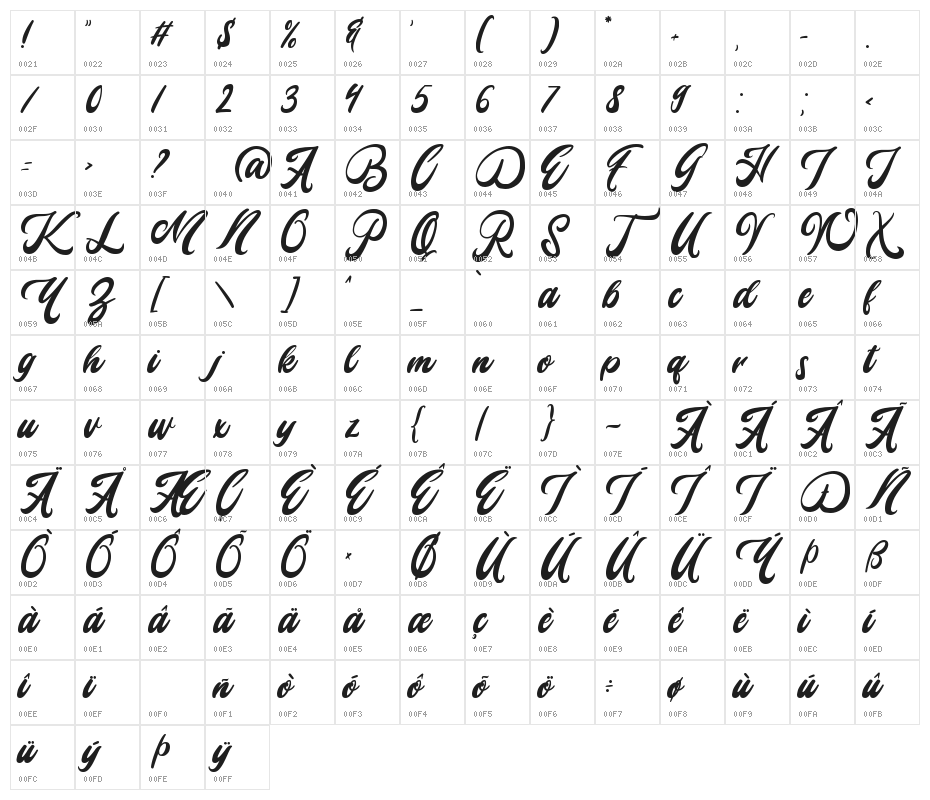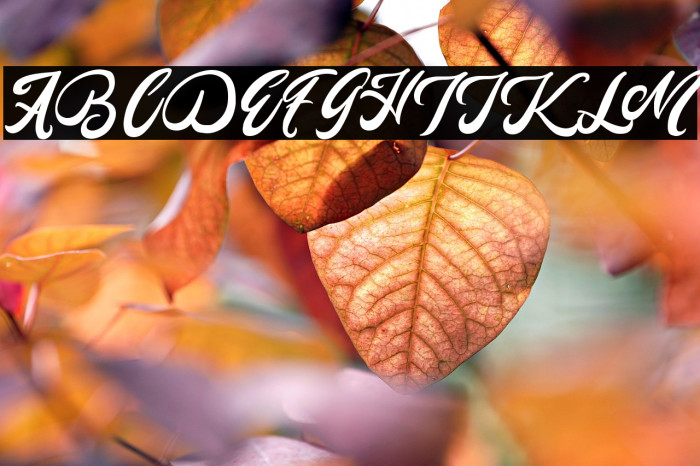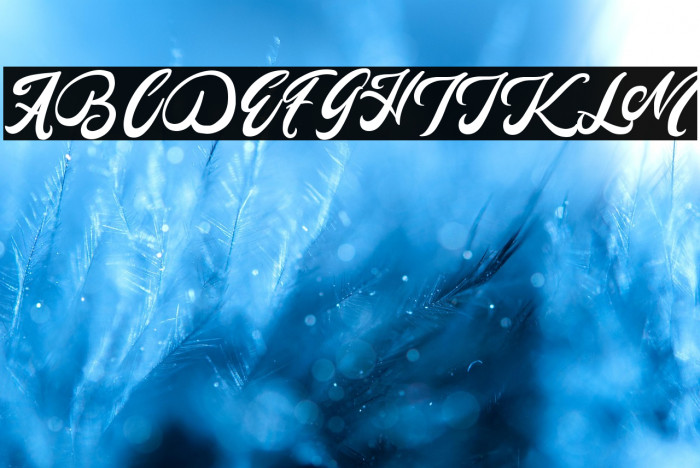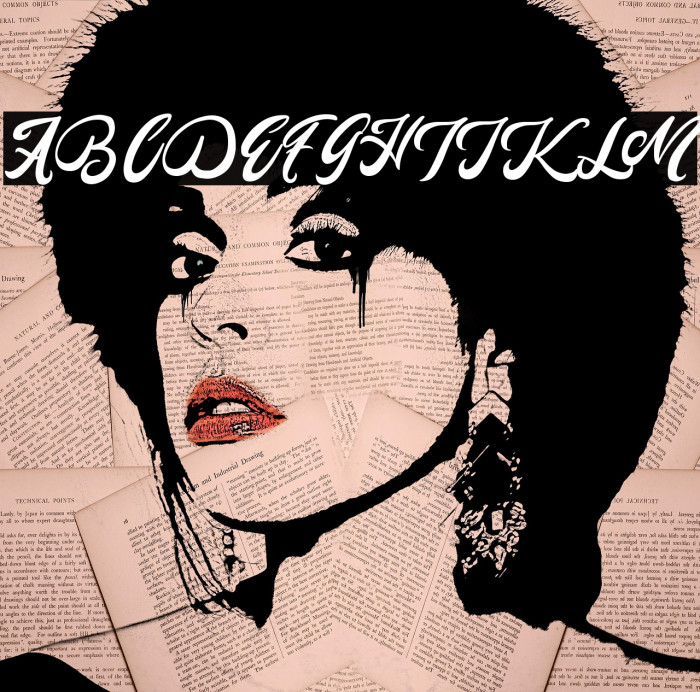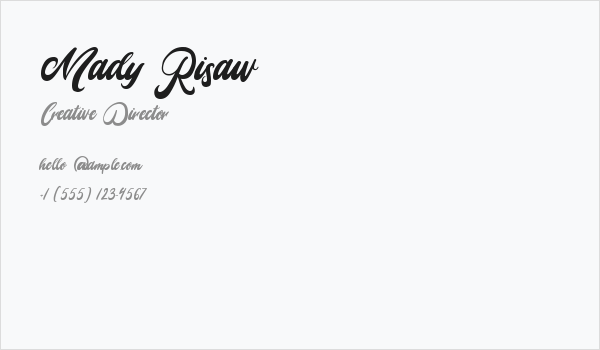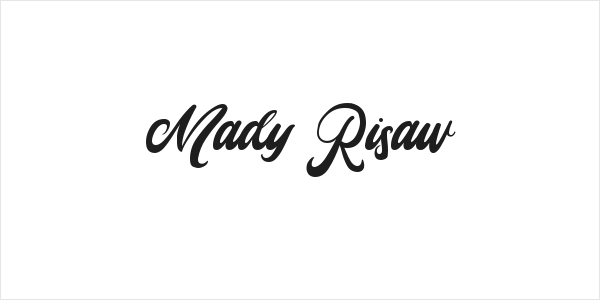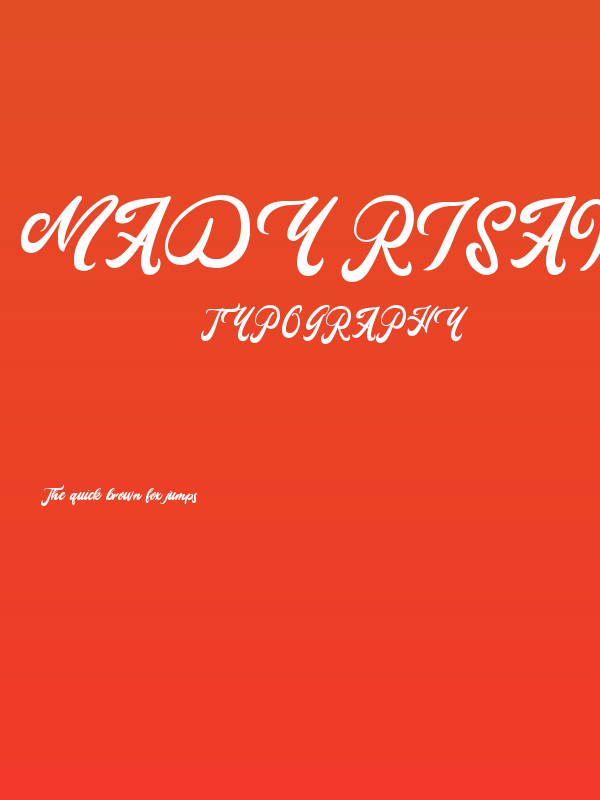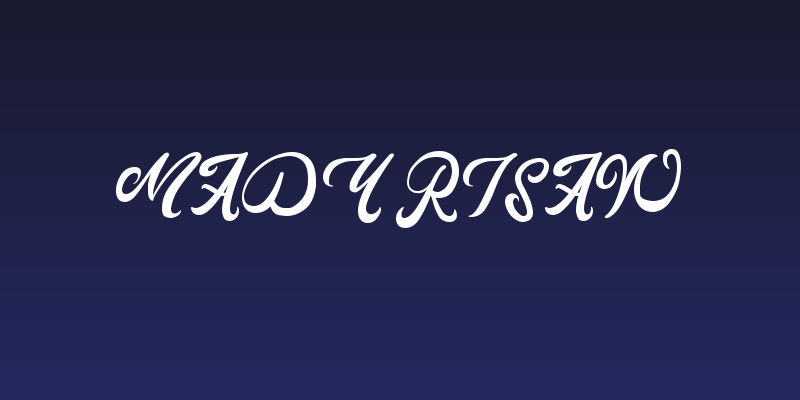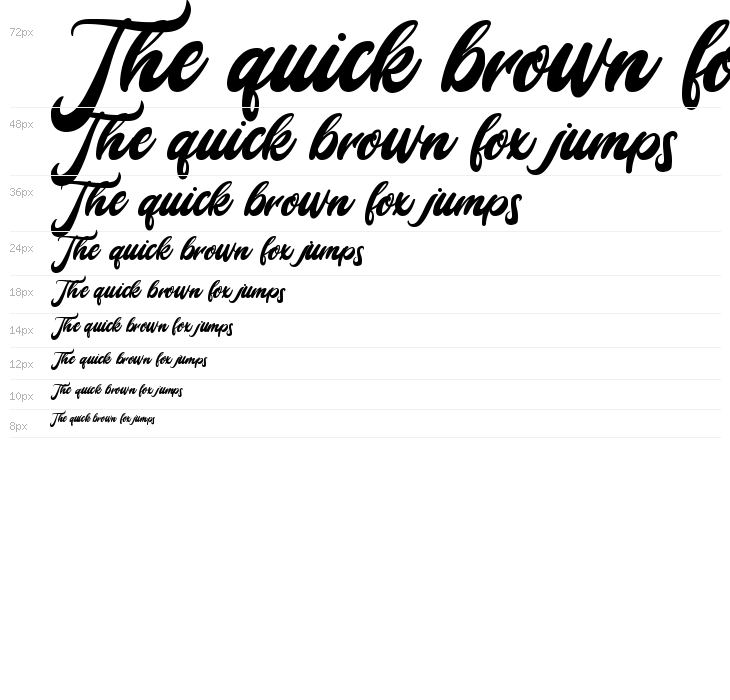
Mady Risaw Font
Mady Risaw Description
This font exhibits a bold, cursive style with a flowing, handwritten appearance. The uppercase letters are elegantly crafted with sweeping curves and a consistent slant, giving them a dynamic and expressive look. The lowercase letters maintain the same fluidity, with some characters featuring distinctive loops and flourishes. The numerals are bold and maintain the cursive style, ensuring consistency throughout. Special characters are also designed with the same attention to detail, making them blend seamlessly with the rest of the font. Overall, this font combines a sense of elegance with a touch of playfulness, making it suitable for a variety of creative projects.
| Use Case | Logos, Invitations, Greeting Cards |
| Proposed Projects | Ideal for wedding invitations, greeting cards, logos, and branding materials that require a personal touch. |